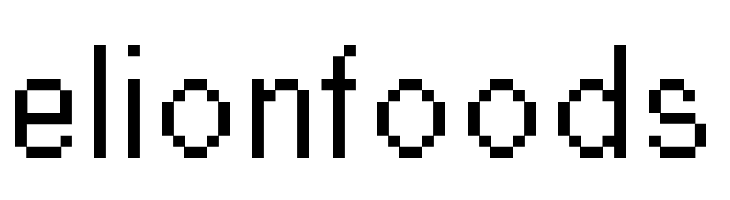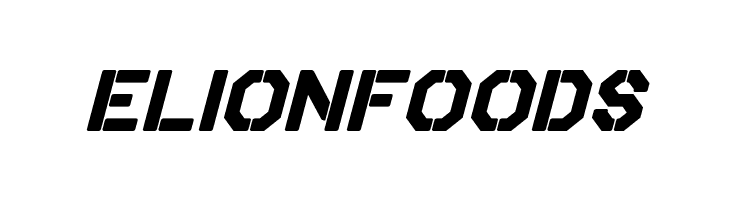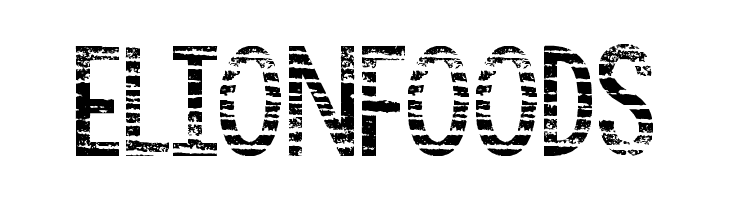
A bold, playful font with chunky, rounded characters for a whimsical look.
A pixelated font with a retro, digital aesthetic, ideal for tech-themed designs.
A bold, italicized font with a geometric and angular design, perfect for modern projects.
A bold, distressed font with a grunge aesthetic and high contrast.